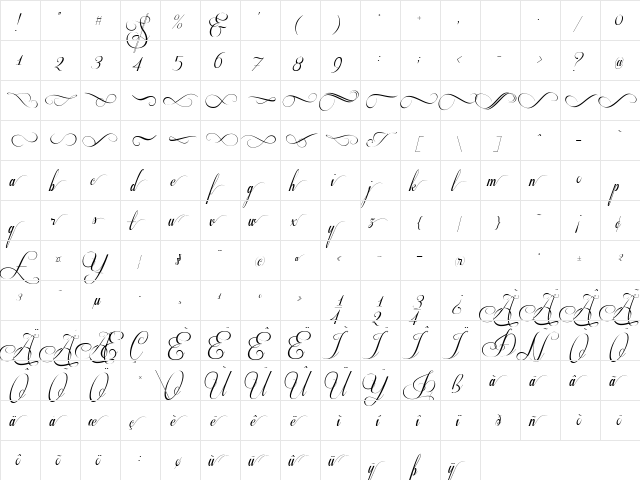
Respective Swashes Regular
| Foundry | M害 Greb䣫 |
| Designer | M害 Greb䣫 |
Design Context for Respective Swashes Typeface
Respective Swashes flows with the natural rhythm of handwritten lettering, making it ideal for designs that call for warmth and personal expression.
Font Pairing: Combine Respective Swashes with a simple geometric sans for maximum contrast — the tension between flowing curves and clean structure is a classic typographic pairing.
Pro Tip: Pair Respective Swashes with a clean sans-serif for supporting text. The contrast between fluid script and geometric structure creates an elegant typographic hierarchy.